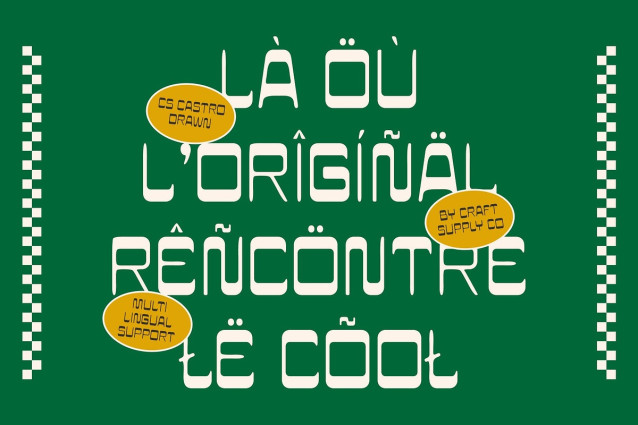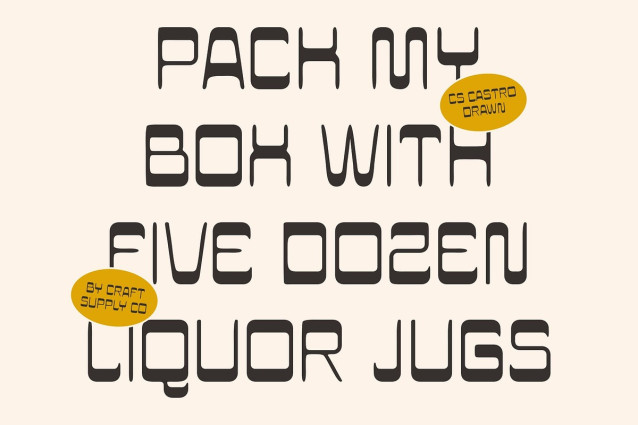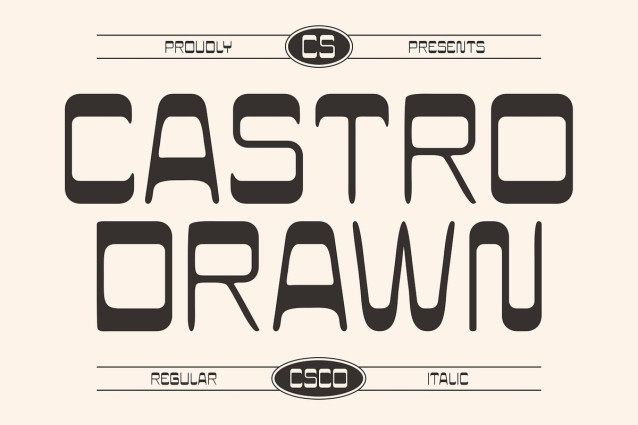
CS Castro Drawn Font
CS Castro Drawn Font is a display sans serif font that masterfully blends reverse contrast with hand-drawn charm. Featuring thick horizontal strokes and thinner vertical lines, its unique reverse contrast structure breaks conventional type design rules, resulting in a bold and unforgettable visual identity. The drawn effect adds an artisanal texture, giving each letter a lively, crafted quality that enhances its character and creative appeal.
Retro Classic Meets Contemporary Expression Rooted in retro aesthetics, this sans serif font channels vintage energy through its unconventional forms. The classic inspiration is evident in its nostalgic charm, while the reverse contrast and expressive strokes push the font into more experimental territory. This fusion creates a balance between familiarity and novelty—perfect for designers who want to evoke the past without feeling dated. It’s ideal for retro themes that seek originality, style, and a bold twist.
Hand-Crafted for Creative Depth The drawn texture lends a warm, hand-crafted essence that softens the geometric boldness of the reverse contrast. It feels both intentional and organic—like a custom lettering piece brought to life. This expressive touch makes this reverse contrast font stand out in creative applications, from branding to artistic layouts. It’s a font that speaks with personality and flair.